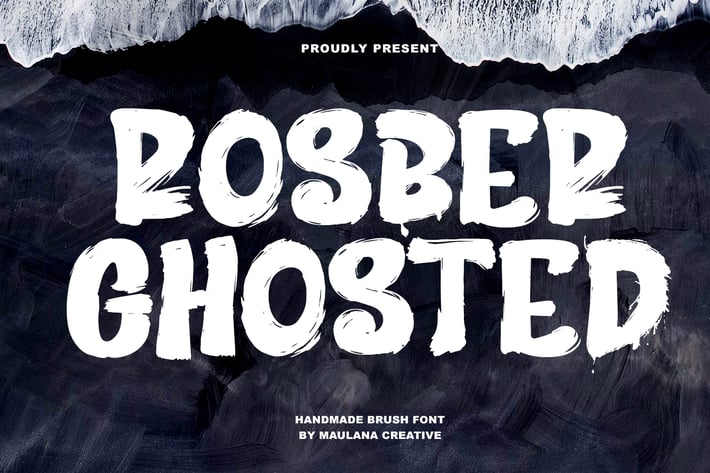
Rosber Ghosted Brush Display Font
Rosber Ghosted brush display font. With three weight stroke, fun character with a bit of ligatures. To give you an extra creative work. Rosber Ghosted brush display font. support multilingual more than 100+ language. This font is good for logo design, Social media, Movie Titles, Books Titles, a short text even a long text letter and good for your secondary text font with sans or serif. Make a stunning work with Rosber Ghosted brush display font.